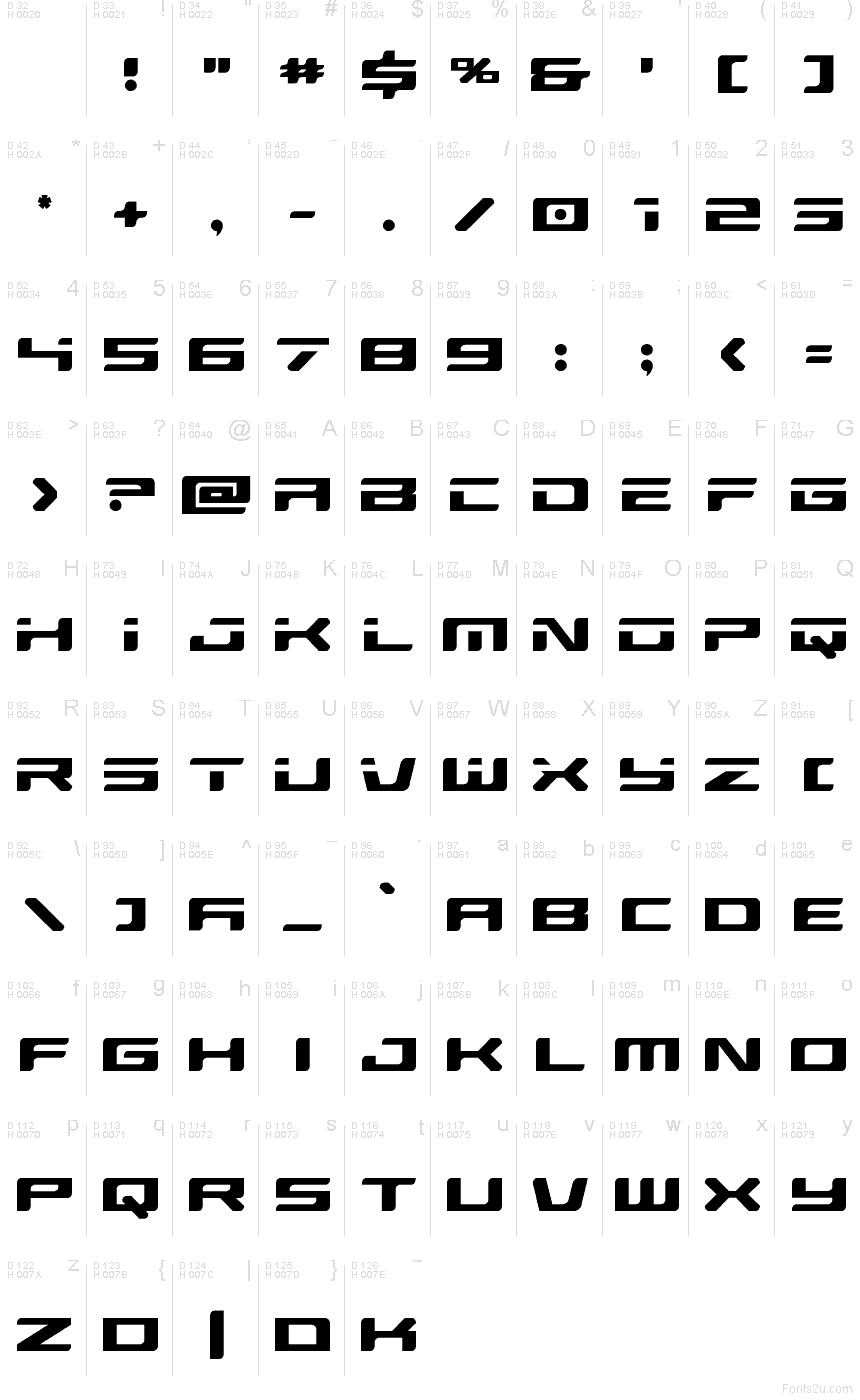
Race Pod
Race Pod font by Iconian Fonts is a free futuristic display typeface that looks like it was pulled straight from a neon race track. Its squared curves, sliced corners, and tight, horizontal momentum give every word a sense of motion, like light trails whipping past at high speed. The letters lock together in a clean, modular rhythm, creating bold wordmarks that feel engineered rather than merely written.
Using Race Pod, your titles and logos instantly pick up a sleek motorsport and sci‑fi edge that works beautifully for racing game logos, esports teams, tech event posters, YouTube channel branding, car decals, and futuristic product packaging. This free font thrives at large sizes where those angular cuts and smooth arcs can really breathe; pair it with a simple geometric sans for supporting text to keep the focus on its fast, aerodynamic shapes.